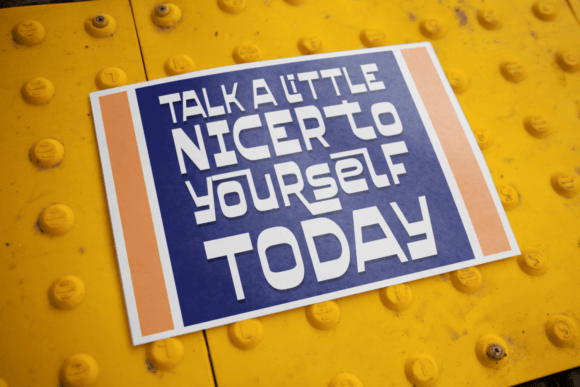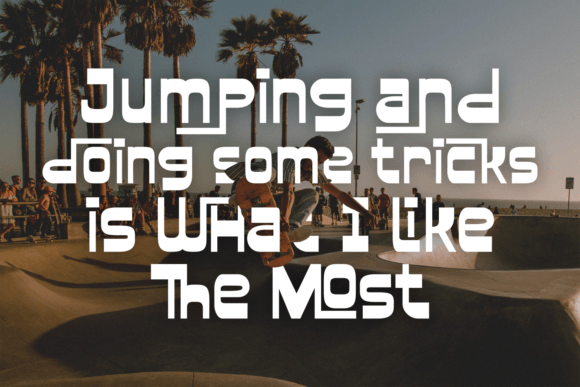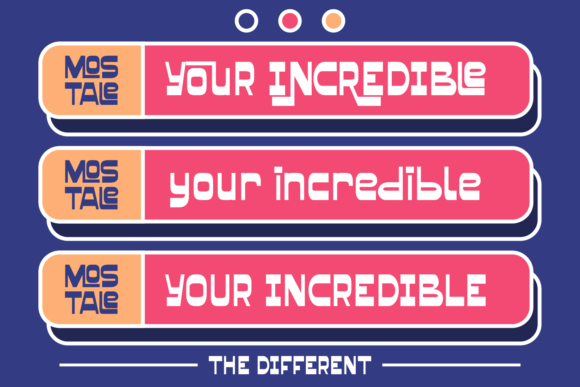
Introduction to Mostale Font
Have you ever stared at a blank canvas, eager to bring a creative project to life, only to be stumped by the perfect font to match your vision? As designers, we’ve all been there. That’s why discovering a new font like Mostale can be a game-changer. With its modern and fresh look, this sans serif display font is set to take your designs to the next level.
Whether you’re working on a poster, quote, branding project, or planner, Mostale Font is the perfect design resource to elevate your work. Its PUA encoded features allow for seamless access to all glyphs, making it a high-quality addition to your font library. And the best part? With a transparent background, you can easily layer it over any image or design element to create a truly unique look.
Key Features of Mostale Font
- High-quality, professional design suitable for creative projects and commercial use.
- Available in a transparent background option, allowing for seamless integration with any design resource.
- Designed with a modern and elegant aesthetic, perfect for use in logos, branding, and other design applications.
Honest Review: Mostale Font
I recently stumbled upon the Mostale Font, and I must say it’s a great addition to any design resource library. The font is perfect for creative projects that require a modern and sleek aesthetic.
What works well with the Mostale Font is its versatility and wide range of applications. It can be used for both digital and print projects, and its transparent background makes it easy to customize and combine with other design elements.
Here are some key features that make the Mostale Font stand out:
- High-quality design suitable for various creative projects
- Wide range of applications, including digital and print projects
While the Mostale Font is an excellent design resource, there are a few limitations to consider: ⚠️ limited font styles available and ⚠️ not suitable for complex, detailed typography.
Overall, I’m impressed with the Mostale Font and would definitely recommend it to fellow designers. It’s a great addition to any design library and can help take creative projects to the next level: ✨
The Mostale Font is perfect for creative projects that require a unique and stylish font. Some common use cases include designing business cards, brochures, and social media graphics. The font’s transparent background makes it ideal for creating visually appealing designs that stand out from the crowd.
Whether you’re a professional designer or a hobbyist, the Mostale Font is definitely worth trying. Its versatility and high-quality design make it a valuable addition to any design arsenal. So, don’t hesitate to download and try it out. You won’t be disappointed!